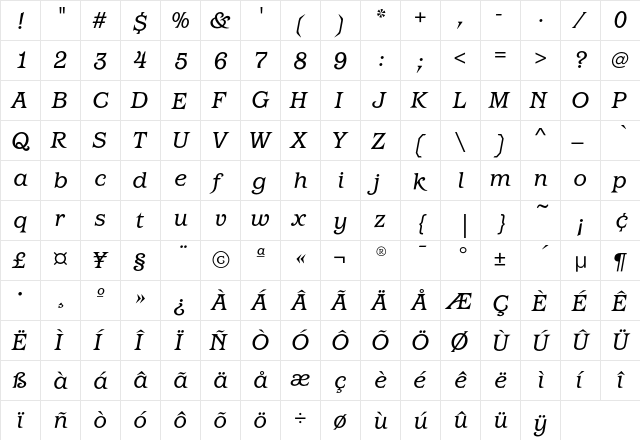
BarcelonaEF-BookItalic Regular
Design Context for BarcelonaEF-BookItalic Typeface
BarcelonaEF-BookItalic is a composed and adaptable typeface that performs quietly and consistently across a wide range of design contexts. Its italic angle brings a sense of urgency and motion to the letterforms.
Pro Tip: Try BarcelonaEF-BookItalic for annotation and caption copy alongside an upright companion — the contrast in angle creates a dynamic but ordered typographic system.